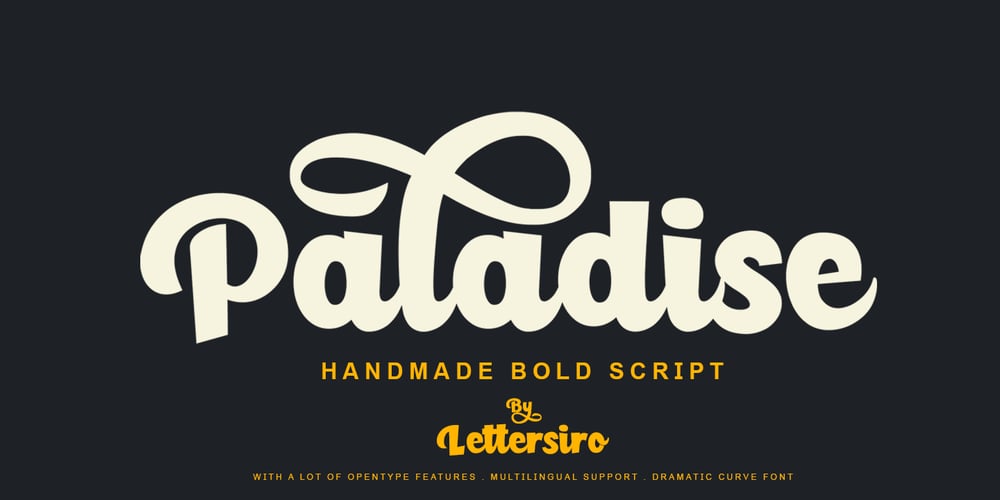
Paladise Font Family was designed by Muhammad Sirojuddin and published by Lettersiro. Paladise contains 2 styles and family package options. Paladise font is great for logo, poster, clothing, branding, party invitation, and many many other cool design projects. Paladise Font Inside:Add more style to each font with OpenType Features – stylistic alternates, lowercase initial form and final form, ligatures, stylistic sets.